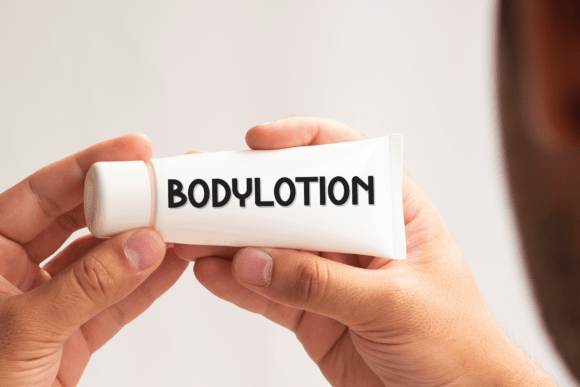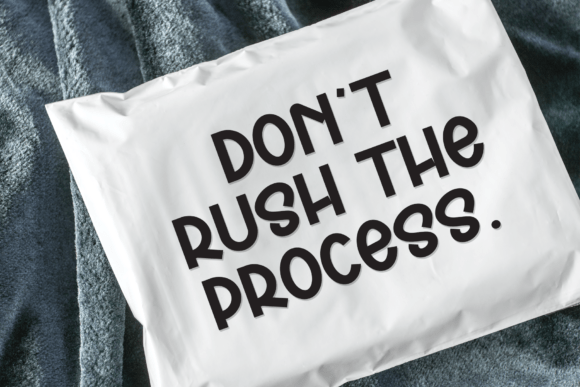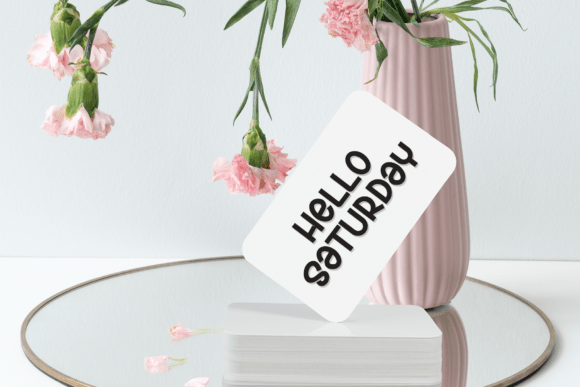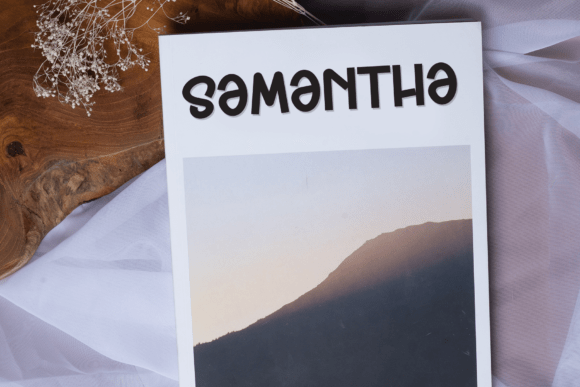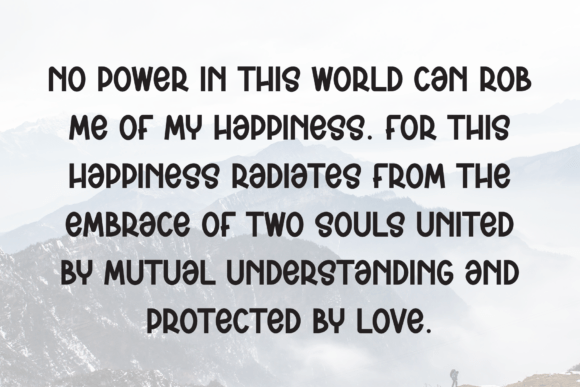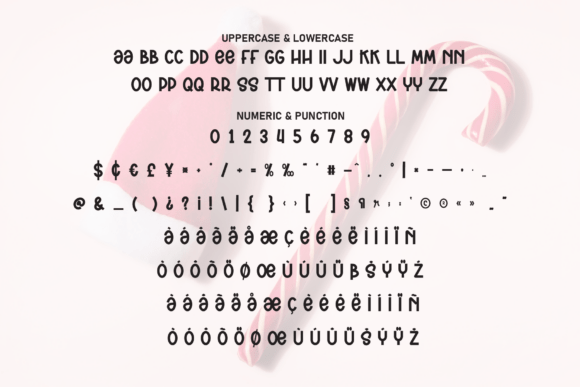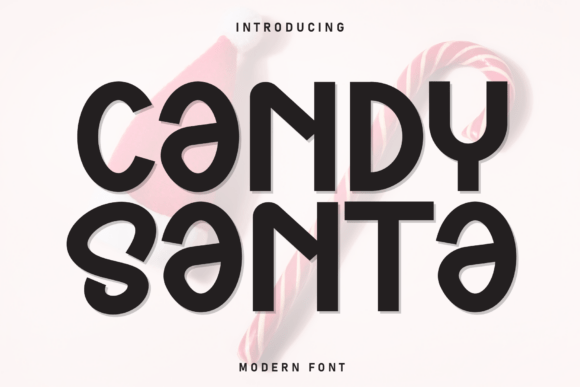
Candy Santa Font: The Sweetest Addition to Your Design Collection
Are you tired of using the same old fonts in your designs? Do you want to add a touch of whimsy and playfulness to your creations? Look no further than the Candy Santa Font, a charmingly affable handwritten display font that’s sure to infuse an enchanting appeal to your designs.
What is Candy Santa Font?
Candy Santa Font is a delightful handwritten display font that’s perfect for designers and crafters who want to add a dash of sweetness to their creations. With its irresistible charm and friendly tone, this font is guaranteed to make your designs stand out from the crowd.
Whether you’re designing wedding invitations, greeting cards, or any other type of stationery, Candy Santa Font is the perfect choice. Its playful and whimsical tone is sure to add a touch of romance and elegance to your designs, making them truly unforgettable.
Adding a Sweet and Friendly Touch to Your Designs
With Candy Santa Font, you can add a sweet and friendly touch to your designs, ensuring they’re not just seen but truly felt. This font is perfect for designers who want to create designs that are both visually appealing and emotionally resonant.
Key Features of Candy Santa Font
- Handwritten display font: Candy Santa Font is a beautifully crafted handwritten display font that’s perfect for adding a personal touch to your designs.
- Charming and affable tone: This font has a charmingly affable tone that’s sure to infuse an enchanting appeal to your designs.
- Perfect for wedding invitations and greeting cards: Candy Santa Font is ideal for designing wedding invitations, greeting cards, and any other type of stationery.
- Playful and whimsical: This font has a playful and whimsical tone that’s sure to add a touch of fun and personality to your designs.
How to Use Candy Santa Font in Your Designs
Tips for Getting the Most Out of Candy Santa Font
- Use it sparingly: While Candy Santa Font is a beautiful font, it’s best used sparingly. Use it as a headline font or to add a touch of personality to your designs.
- Pair it with other fonts: Candy Santa Font pairs well with other fonts, including serif and sans-serif fonts. Experiment with different font combinations to find the perfect look for your design.
- Experiment with colors: This font looks great in a variety of colors, including bright and pastel colors. Experiment with different colors to find the perfect look for your design.
Candy Santa Font is a charmingly affable handwritten display font that’s perfect for designers and crafters who want to add a touch of sweetness to their creations. With its irresistible charm and friendly tone, this font is guaranteed to infuse an enchanting appeal to your designs. Whether you’re designing wedding invitations, greeting cards, or any other type of stationery, Candy Santa Font is the perfect choice.